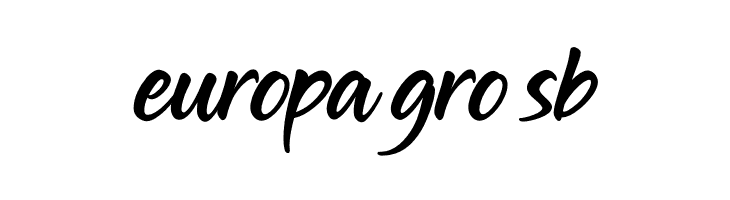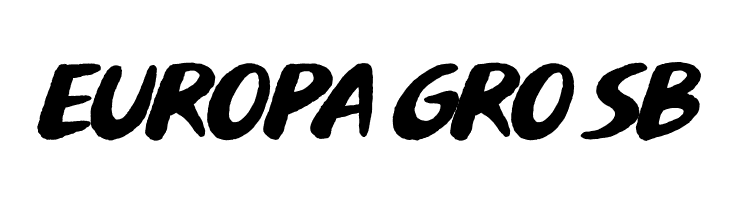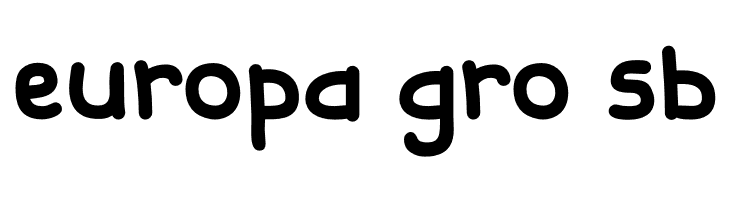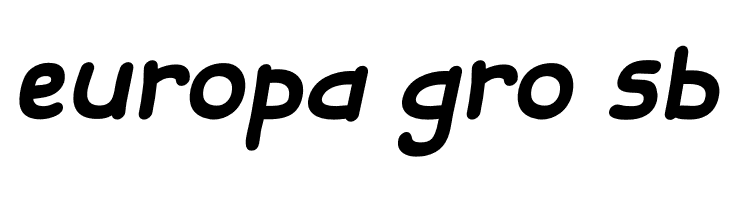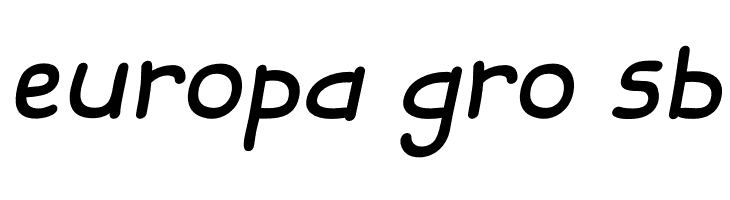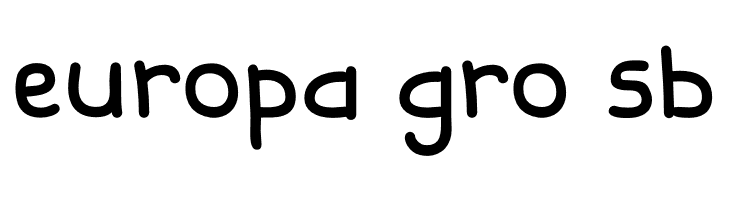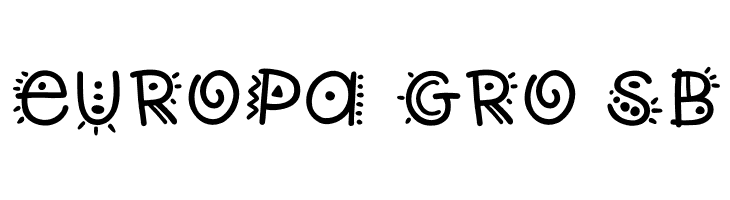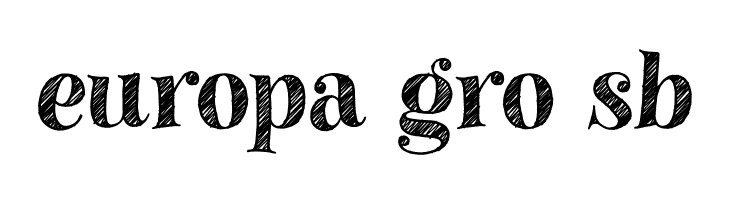
A dynamic, cursive script font with bold strokes and a handwritten feel.
A bold, brush-style font with dynamic, slanted strokes for an energetic look.
A playful, bold font with rounded, friendly characters.
A bold, rounded, and italicized font with a playful and friendly style.
A playful, italic, handwritten-style font with smooth, rounded letters.
A playful, rounded handwritten font with smooth curves and consistent strokes.
A playful, decorative font with whimsical embellishments and a hand-drawn feel.
A bold, hand-drawn style font with a textured, sketch-like finish.